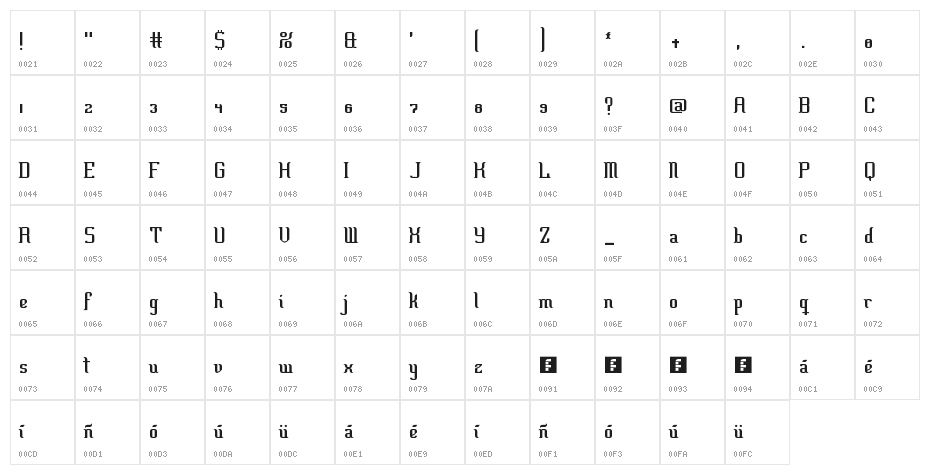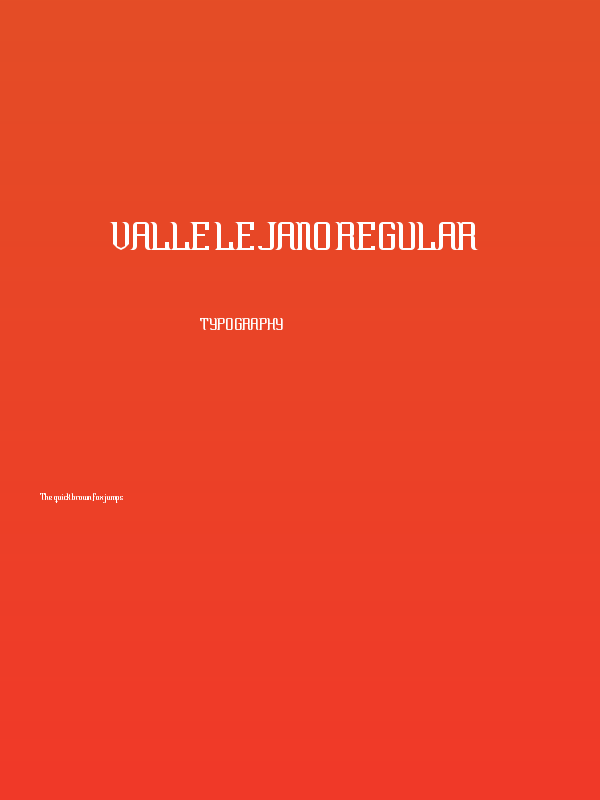
Valle Lejano Regular Font
Valle Lejano Regular Description
This font exhibits a bold and striking appearance with a unique blend of modern and vintage elements. The uppercase letters are characterized by their tall, narrow forms with sharp, angular edges, giving them a strong and commanding presence. The lowercase letters maintain a similar style, with a slightly more fluid and connected look, adding a touch of elegance. The numerals are consistent with the overall design, featuring the same bold and angular characteristics. Special characters are distinct and well-integrated, ensuring versatility in various design contexts. The font's overall style is reminiscent of Gothic or Blackletter influences, yet it maintains a contemporary feel, making it suitable for both traditional and modern applications.
| Overall Style | Modern, Vintage |
| Proposed Projects | Ideal for branding, poster design, album covers, and any project requiring a bold, distinctive typeface. |